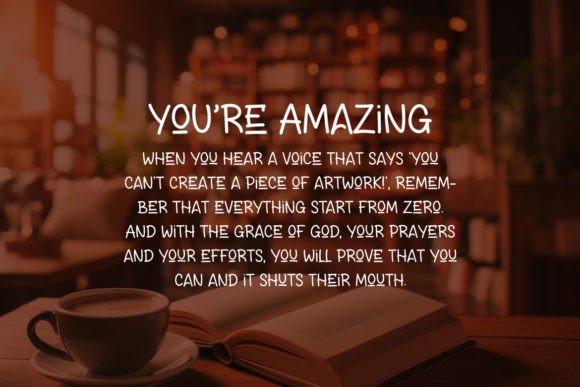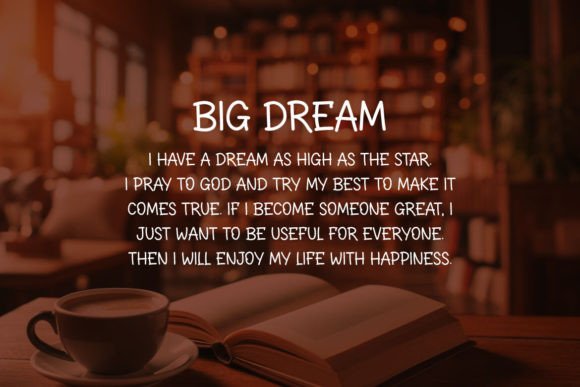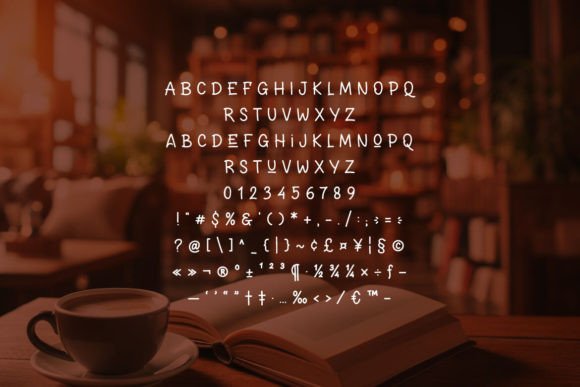
Introduction to Coffee Book Font
Introducing **Coffee Book**, a simple yet sophisticated decorative font that adds a touch of class and refinement to your designs.
With its clean lines and subtle ornamental details, **Coffee Book** is perfect for a variety of creative projects where you want to convey elegance and style This font is ideal for invitations, logos, posters, and more.
Key Features of Coffee Book Font